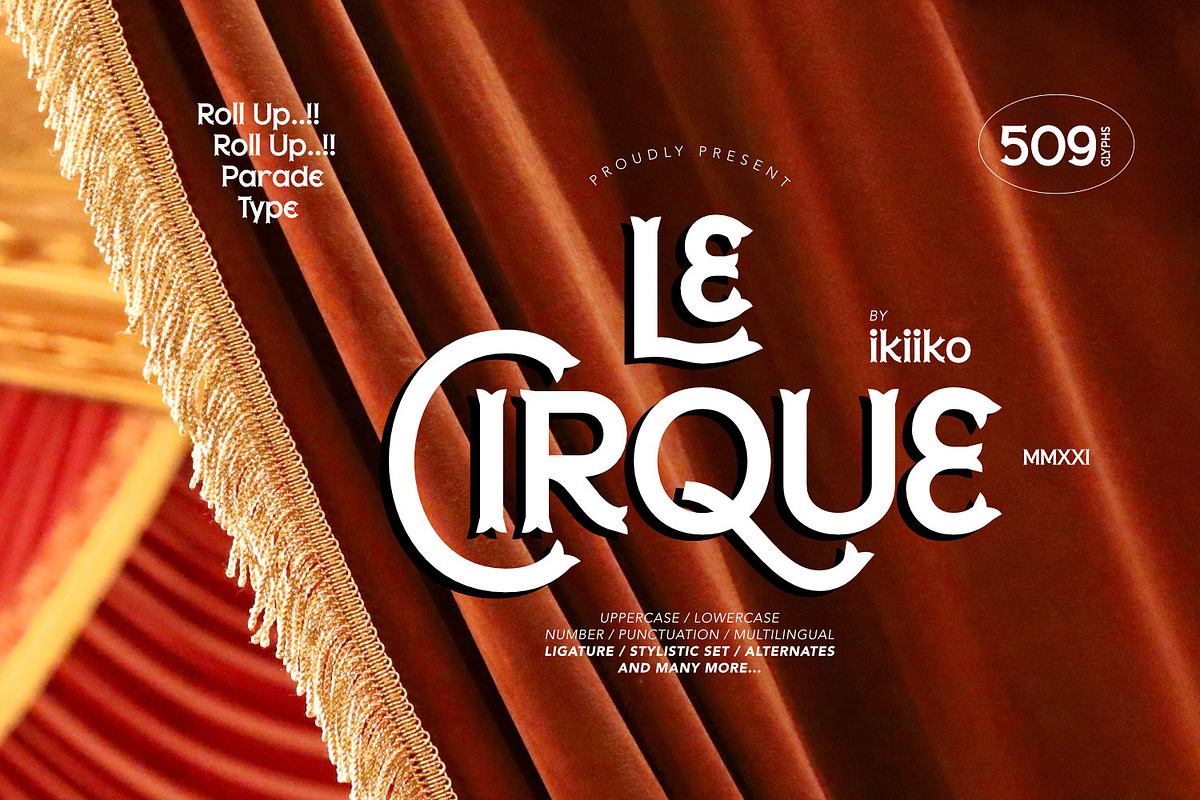
Le Cirque - Parade Type Free Download
Please note, you must purchase this font for commercial use. However, you can easily download Le Cirque - Parade Type Free Download for personal use and testing purposes. Le Cirque - Parade Type is a fun, bold, and playful typeface that brings the lively spirit of the circus to your designs. Ideal for event posters, carnival promotions, logos, and children's materials, this font captures the excitement and energy of a parade. With its quirky and eye-catching letterforms, Le Cirque - Parade Type Free Download ensures that your text stands out and grabs attention. Whether you're creating a festive flyer or a brand identity that needs a touch of whimsy, this font will add a unique and joyful flair. Try Le Cirque - Parade Type Free Download today and explore its vibrant possibilities before deciding on a commercial license.